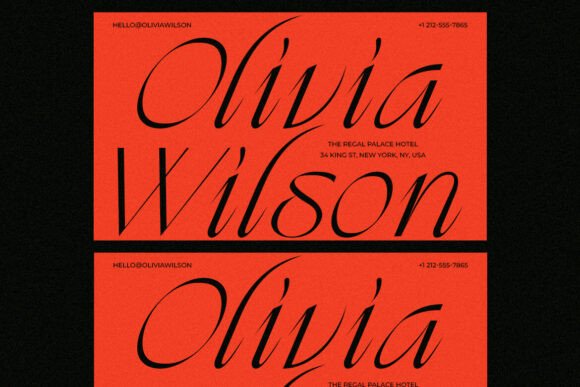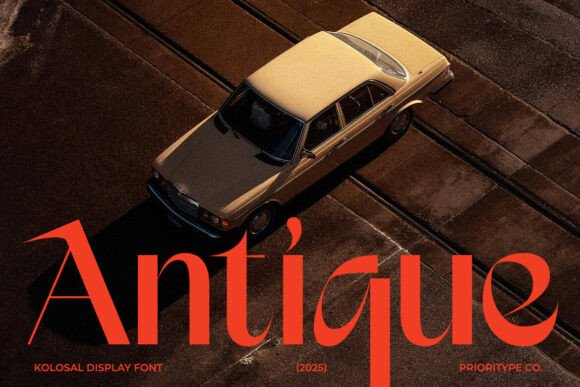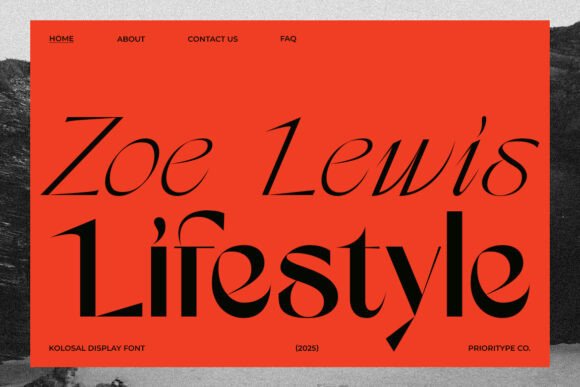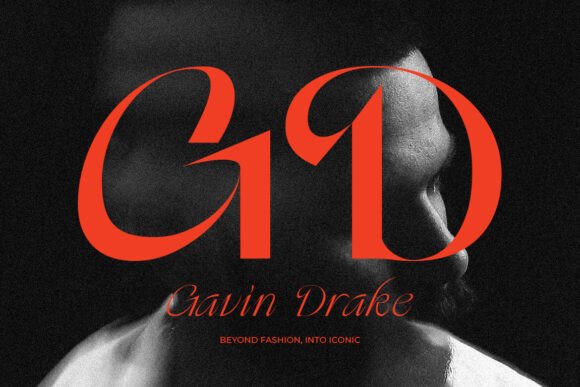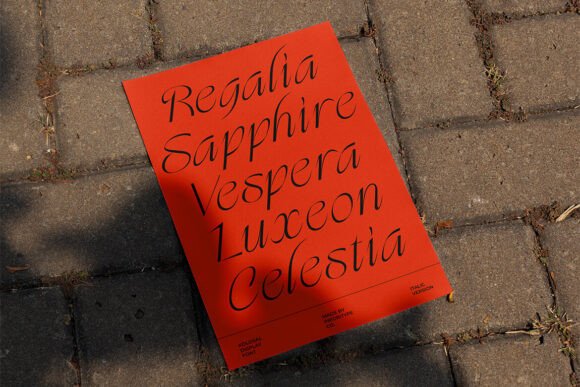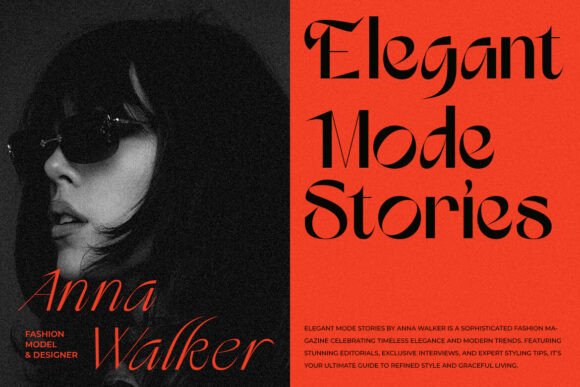
Introduction to Kolosal Display Font
Have you ever stared at a blank canvas, wondering how to bring your creative vision to life? The blank page can be daunting, but what if you had the perfect tool to spark inspiration? Enter Kolosal Display Font, a bold and memorable typeface designed to make a statement. This versatile font is a game-changer for designers, offering two distinct styles to adapt to any creative project.
Whether you’re working on an eye-catching poster or a high-quality branding design, Kolosal Display Font is the perfect design resource to elevate your work. With its modern yet timeless appeal, this font is guaranteed to leave a lasting impression. And the best part? It’s available for a free download, making it an accessible and valuable addition to any designer’s toolkit.
Key Features of Kolosal Display Font
- Unique and bold design, ideal for creative projects and making a statement
- High-quality font with transparent background, perfect for use on any design resource
- Includes multiple font sizes, ranging from 12 to 72 points, suitable for various design applications
- Resolution-independent, ensuring crisp and clear text at any zoom level or resolution
- Designed to be highly legible, even at large font sizes, making it perfect for headings and titles
Honest Review: Kolosal Display Font
I recently had the chance to work with the Kolosal Display Font for a creative project, and I must say it’s been a game-changer. The high quality of this font is evident from the first glance, making it a fantastic design resource for any project.
- ✨ Elegant and modern design aesthetic, perfect for creating a unique visual identity.
- ✨ Offers a wide range of styles and weights, allowing for maximum flexibility in your design.
- ✨ Includes a transparent background, making it easy to customize and blend with your design.
- ⚠️ Limited availability of language support, which may be a concern for multilingual projects.
- ⚠️ Some users may find the font to be too bold or overpowering, depending on the context.
Overall, I’m thoroughly impressed with the Kolosal Display Font. Its high quality, versatility, and modern design aesthetic make it an excellent addition to any design resource library. With a free download available, there’s no reason not to give it a try for your next creative project.
How to Use Kolosal Display Font
Kolosal Display Font is a high-quality design resource perfect for creative projects. With its unique style and transparent background, it’s an ideal choice for designers looking to add a touch of sophistication to their work.
Using Kolosal Display Font in Design Applications
Kolosal Display Font can be used in a variety of design applications, including:
– Use Kolosal Display Font to create stunning graphics and designs for social media, marketing materials, and more.
– Take advantage of Kolosal Display Font’s high-quality design capabilities to create professional-looking graphics and illustrations.
– Use Kolosal Display Font to add a touch of elegance to your presentations and documents.
Tips for Getting the Most Out of Kolosal Display Font
To get the most out of Kolosal Display Font, try experimenting with different font sizes, colors, and combinations to create unique and eye-catching designs.
Kolosal Display Font is perfect for a variety of creative projects, including:
- Graphic design and branding
- Marketing materials and advertising
- Print design and publishing
Alternatives to Kolosal Display Font
Great Vibes is a high-quality, cursive font perfect for creative projects that require a touch of elegance. It’s ideal for use in design resources, such as invitations, posters, and social media graphics. Great Vibes is available for free download and features a transparent background, making it easy to layer with other design elements.
Compared to Kolosal Display Font, Great Vibes is more suitable for projects that require a softer, more refined look. While Kolosal Display Font is bold and eye-catching, Great Vibes is more subtle and versatile.